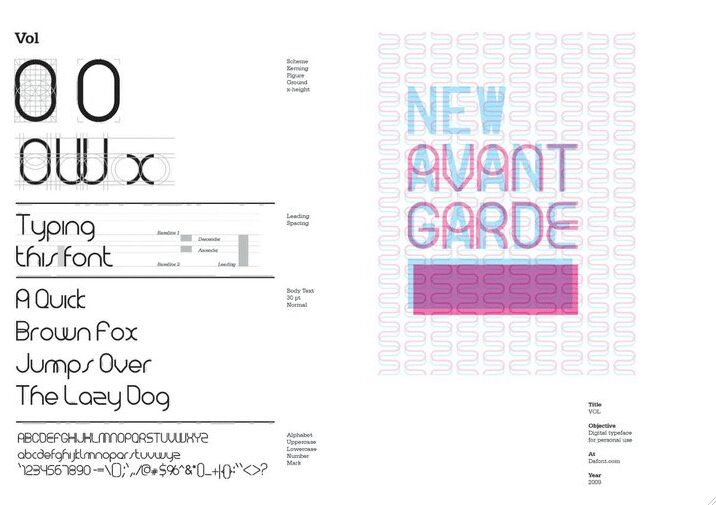
VOL
VOL, a display font crafted by Adhreza, stands out with its techno style and semi-light weight. This sleek typeface boasts clean lines and an almost futuristic appeal, making it an impeccable choice for projects that require a modern and minimalist touch. Its geometric precision lends itself to high-impact visuals where clarity is paramount yet subtly demands attention through its elegant structure.
Whether used in digital interfaces, branding materials, or promotional content, VOL's aesthetic is versatile enough to translate across various mediums while maintaining its distinct presence. The character of the font suggests movement and progression, ideal for industries looking to project innovation and forward-thinking.
In essence, VOL is not merely a font but a visual statement that embodies sophistication without sacrificing functionality—a perfect synthesis for designers aiming to leave a lasting impression in their creative endeavors.